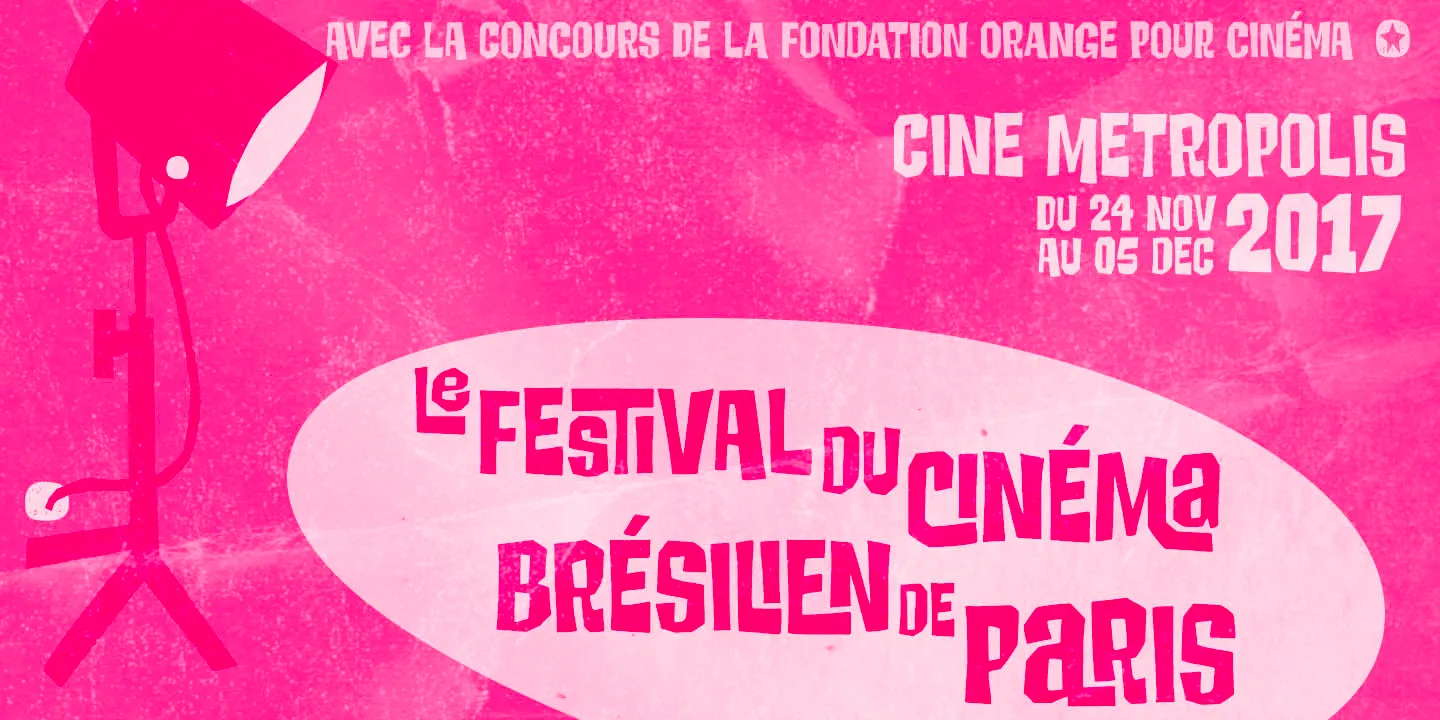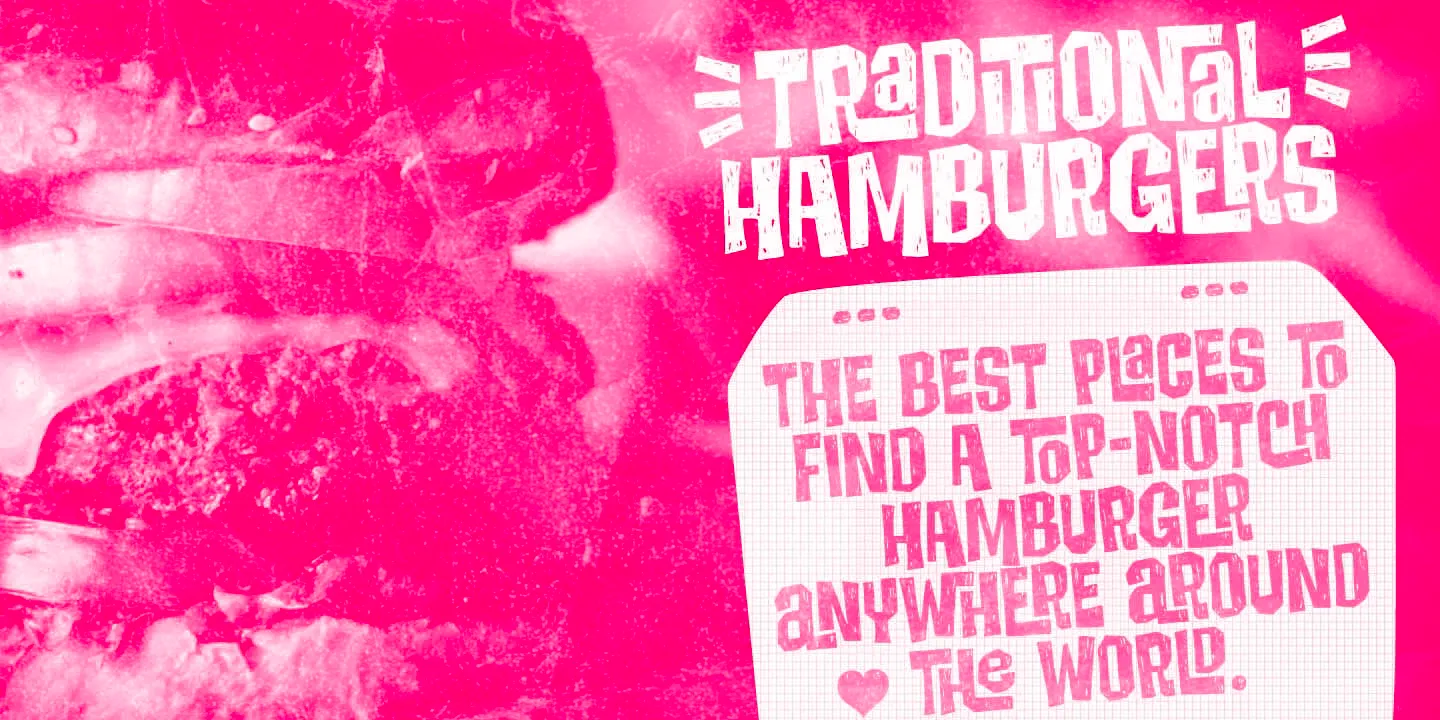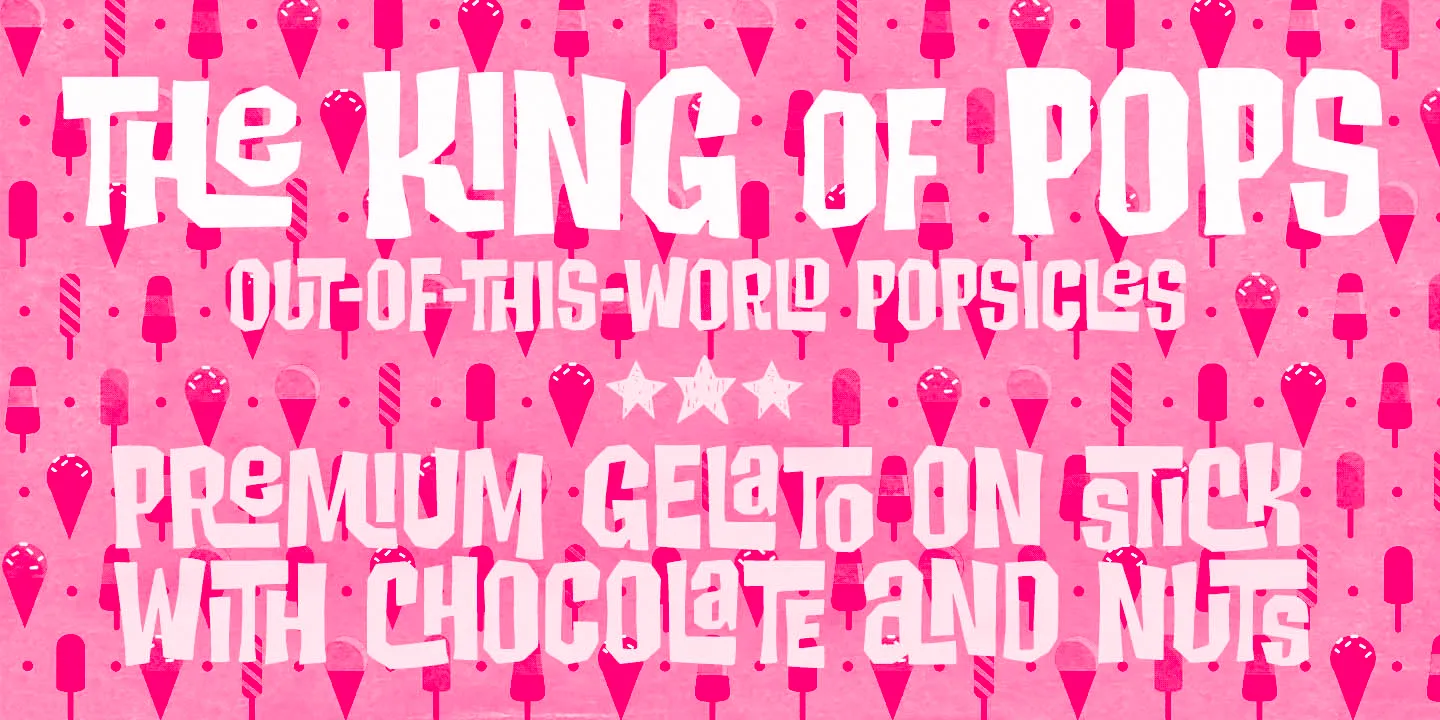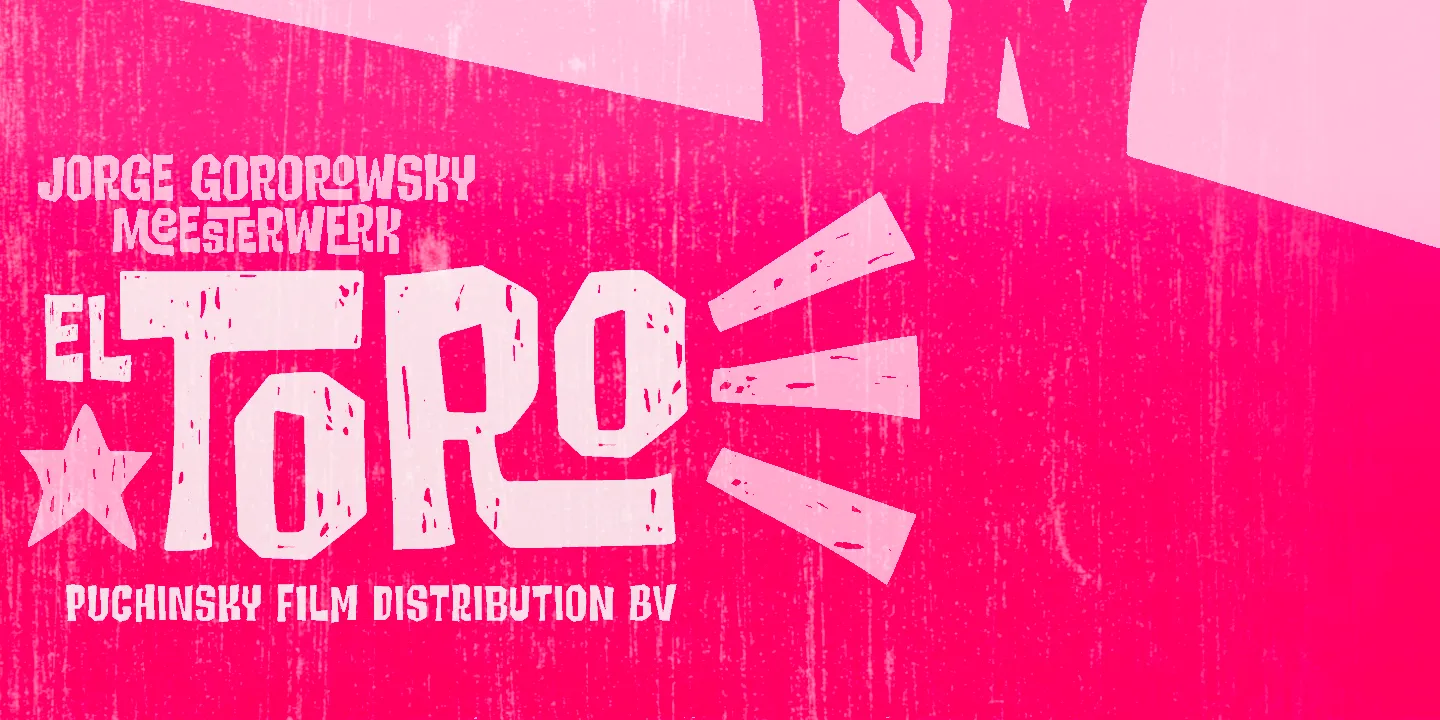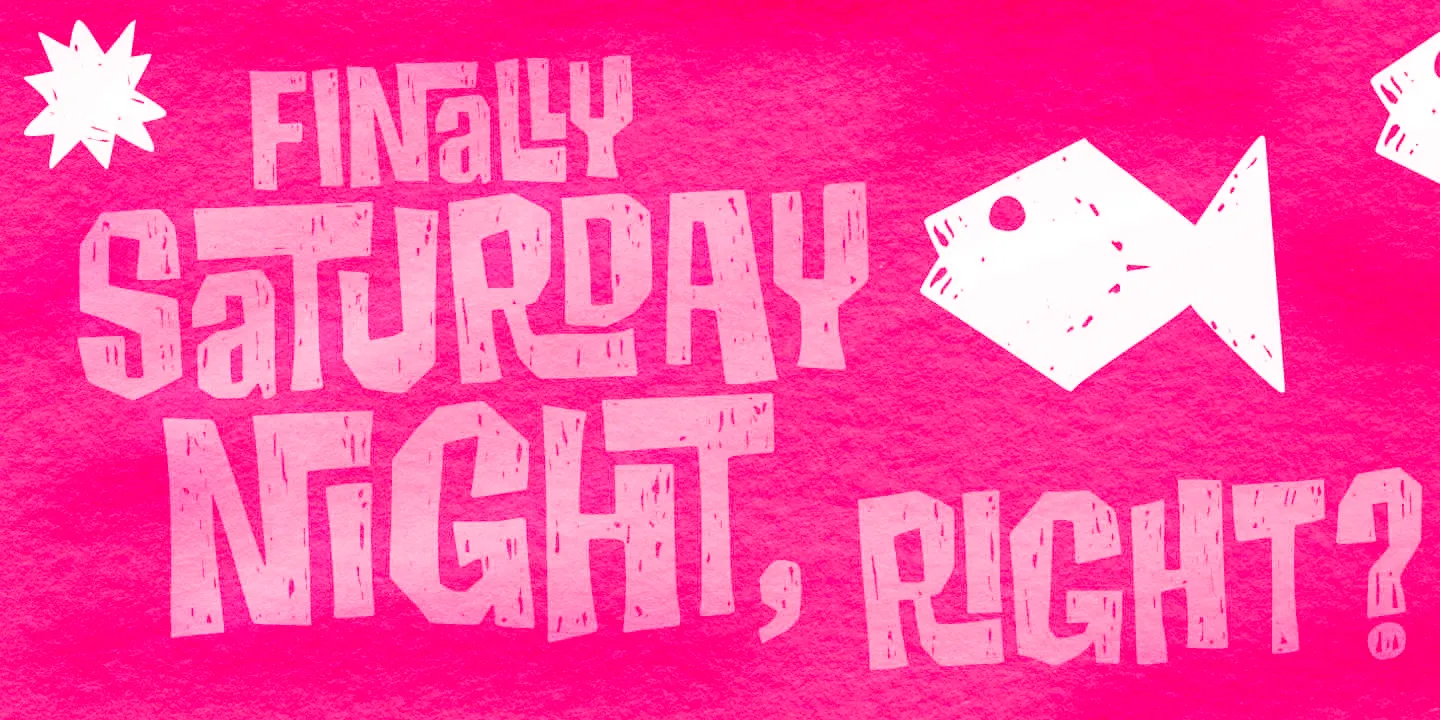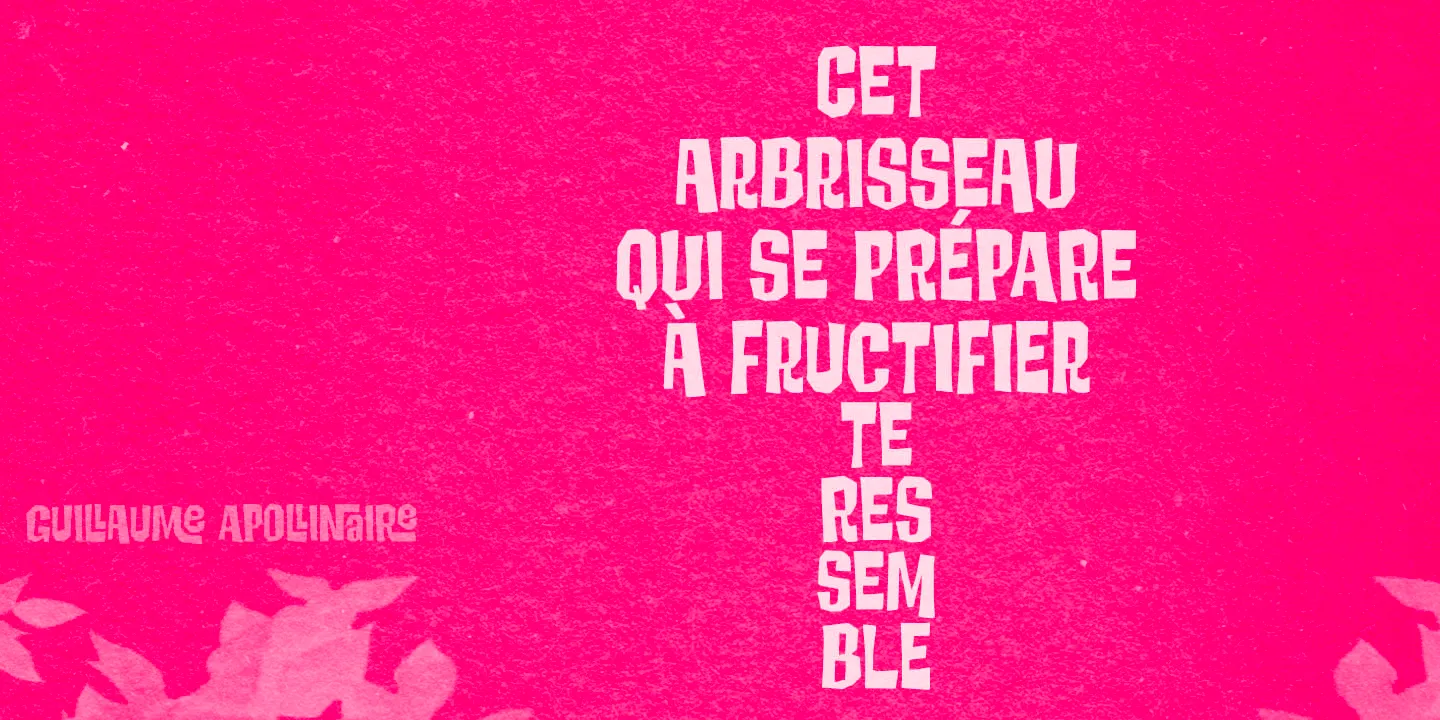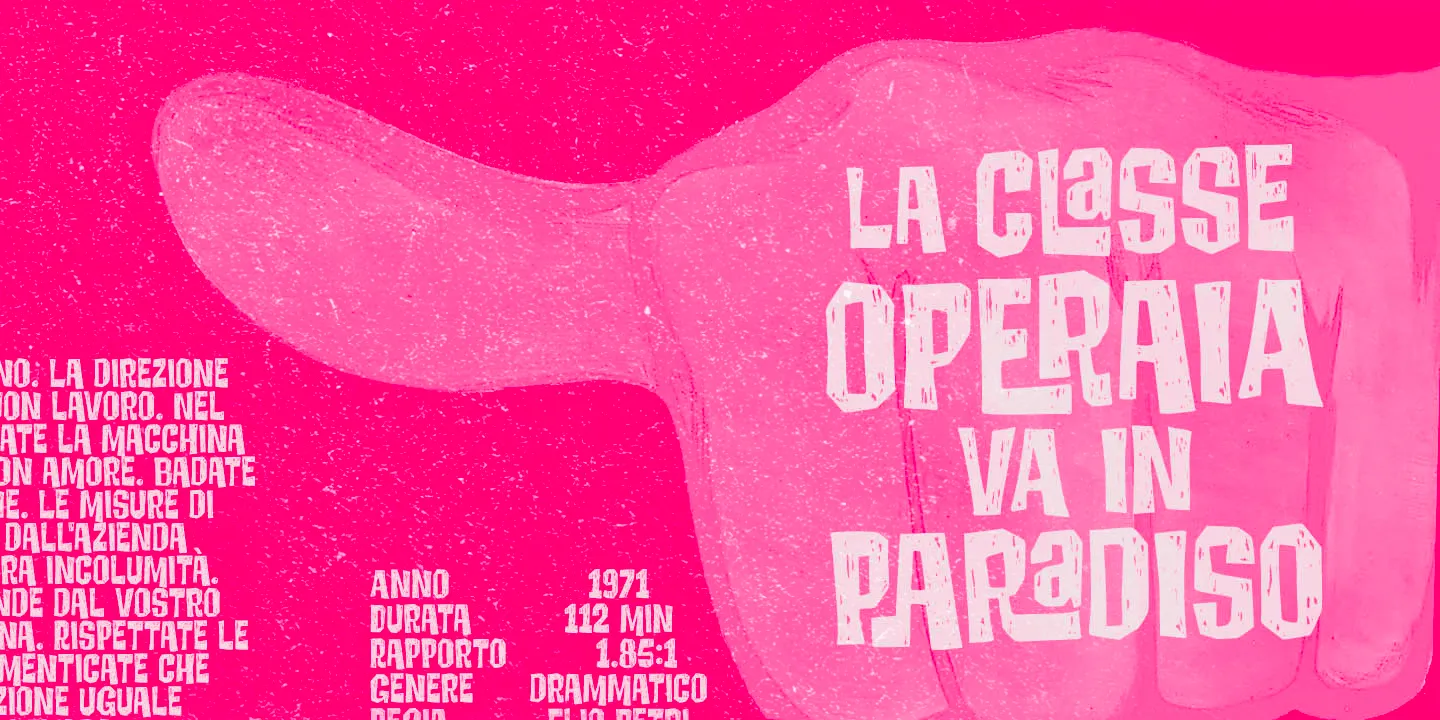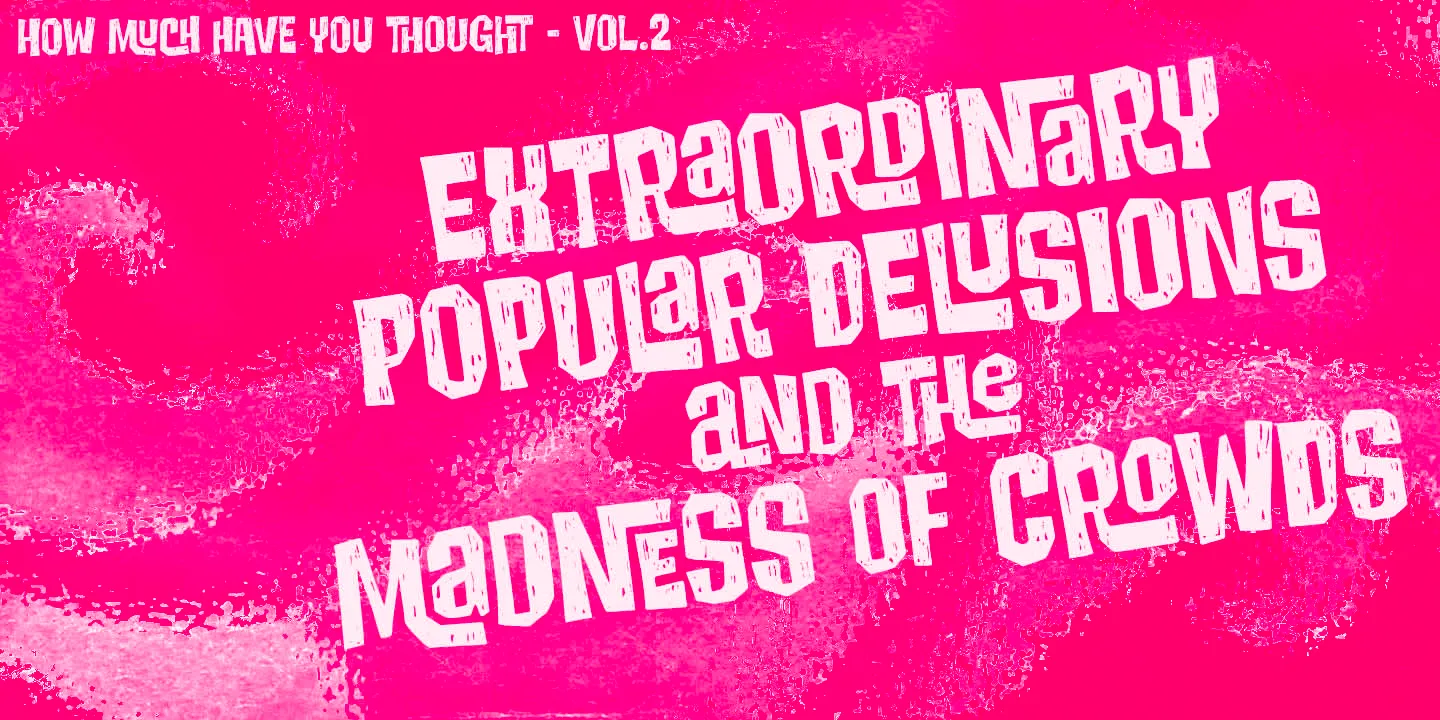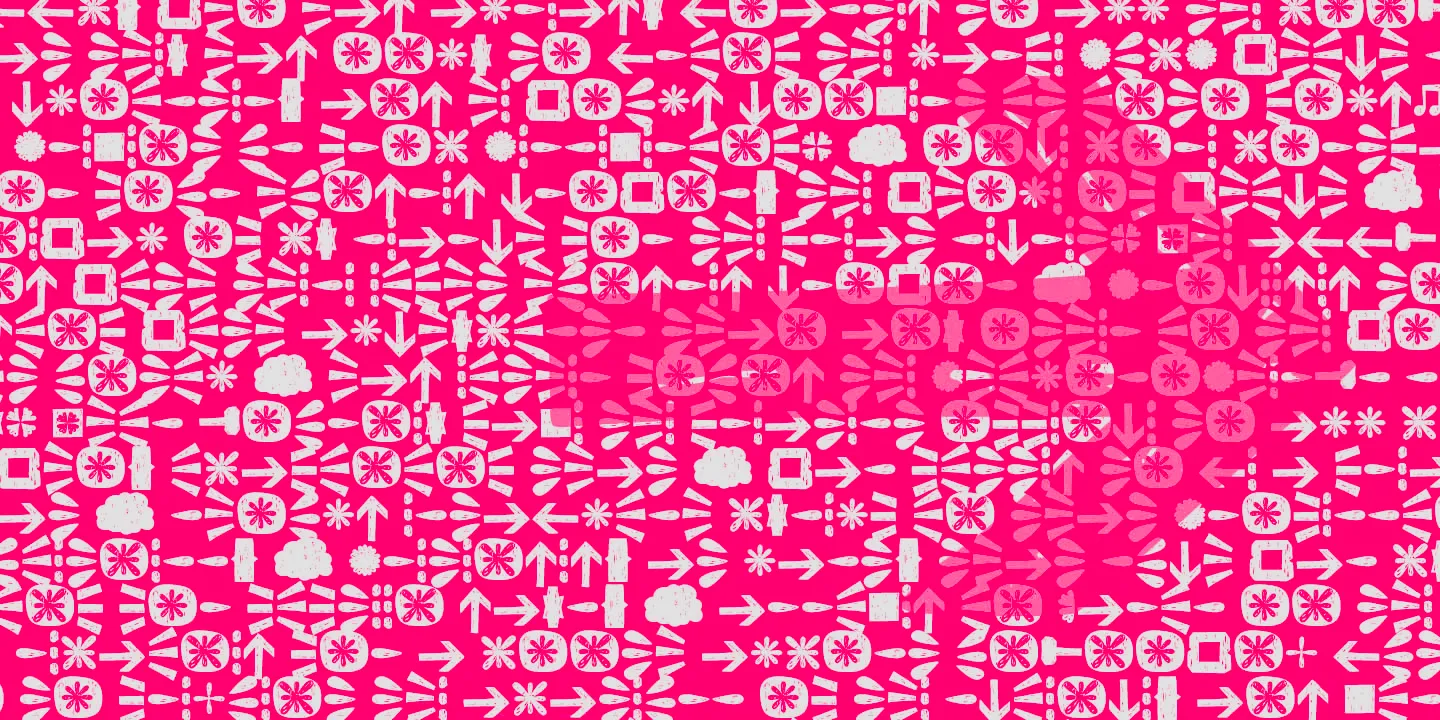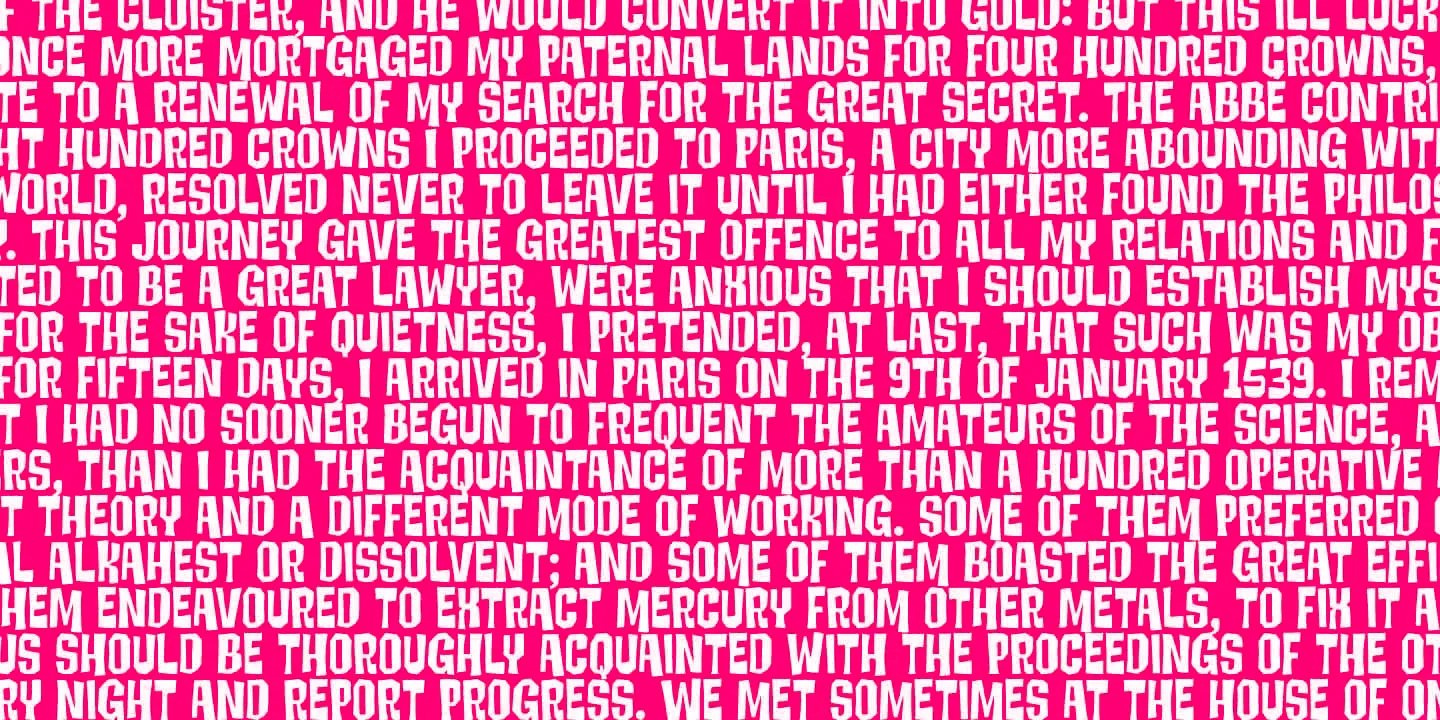
Manihot
Manihot is a cool, loud, high-impact display font inspired by the film posters of Italian artist Symeoni from the 1960s and 1970s. It combines assertive forms — Clean and Rough — with a cut-and-paste texture for a lively, screen-printed feel. Each letter comes with an alternate, allowing for creative variation within words. Also includes a handy set of dingbats! Perfect for impossible-to-ignore magazines, posters, book covers, and expressive branding. Give it a go!
- Discretionary Ligatures
- Stylistic Alternates